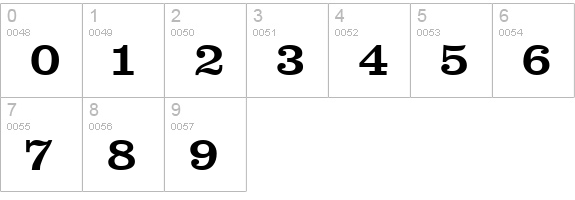
Clarion Bold is a strong, high-contrast variant in the Clarion typeface family \xE2\x80\x94 well suited to headlines, attention-grabbing titles, and strong calls-to-action.
Clarion Bold font is a versatile and eye-catching typeface that commands attention with its bold and assertive design. Its strong, clean lines make it perfect for headlines, titles, and any other text that needs to stand out. The font exudes confidence and modernity, making it a great choice for a wide range of design projects. What's even better is that Clarion Bold is available for free download at FontsMarket.com. This means that you can easily access this striking font and use it in your designs without any cost. Whether you're working on a poster, logo, website, or any other creative project, Clarion Bold is sure to make a bold statement and leave a lasting impression. Download it today and elevate your designs with this impactful typeface.